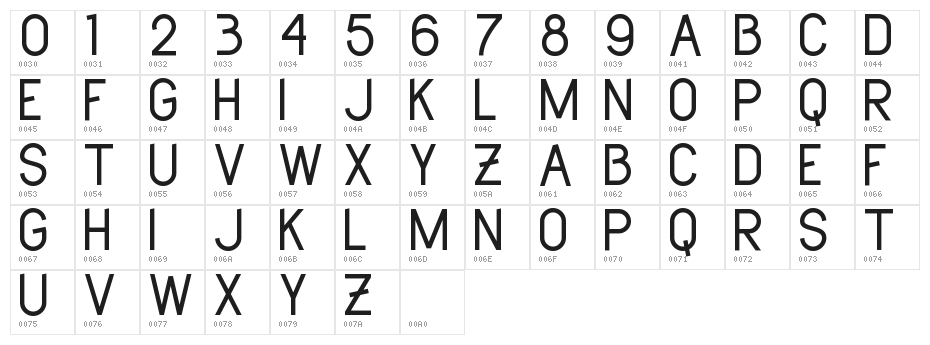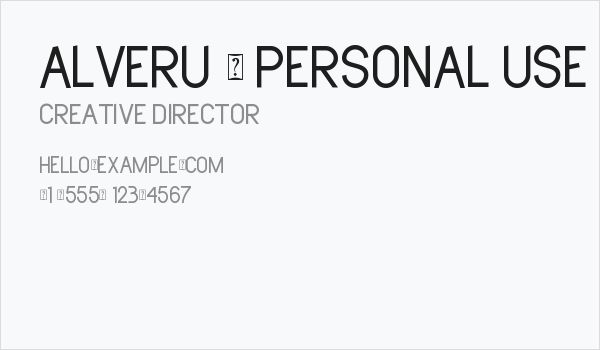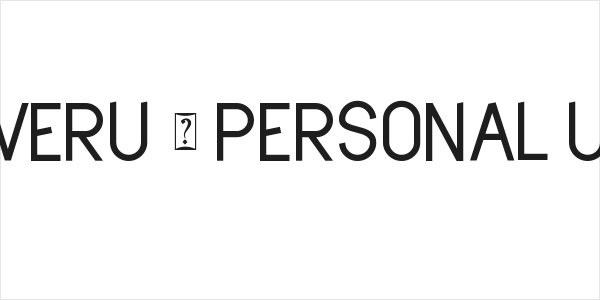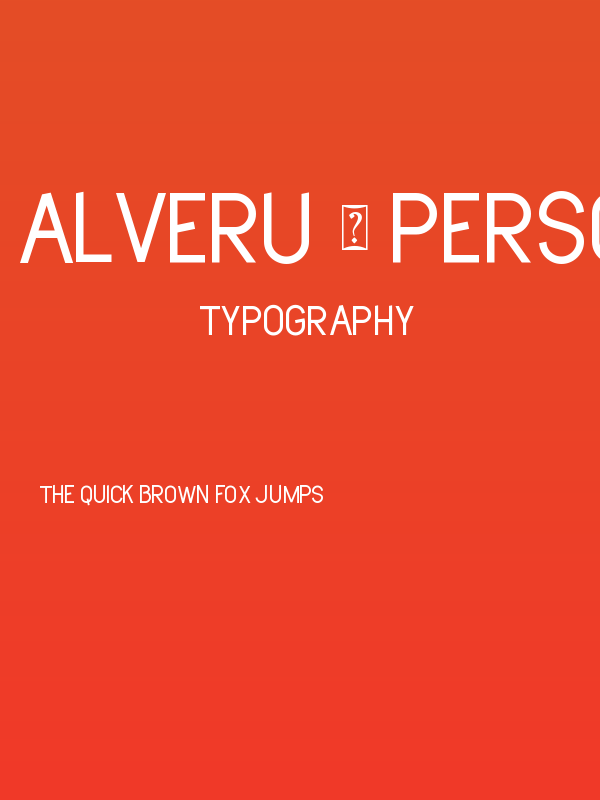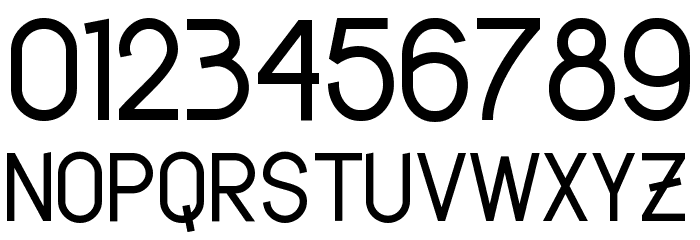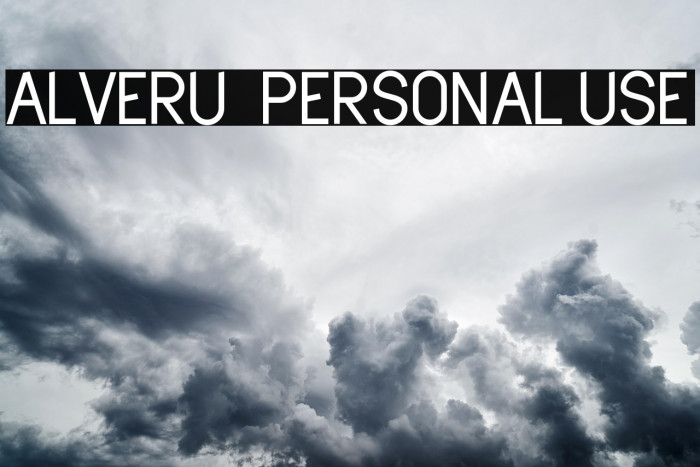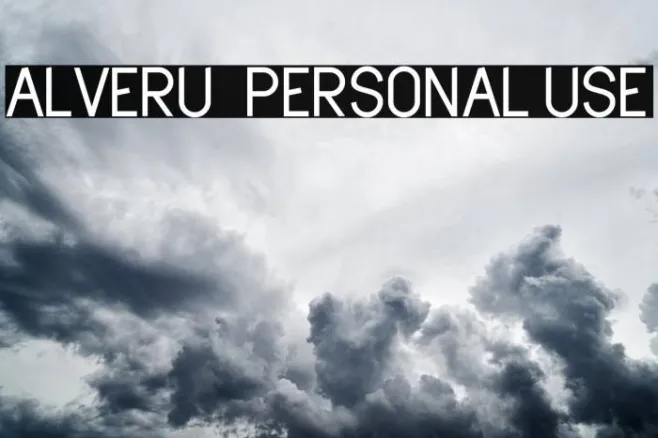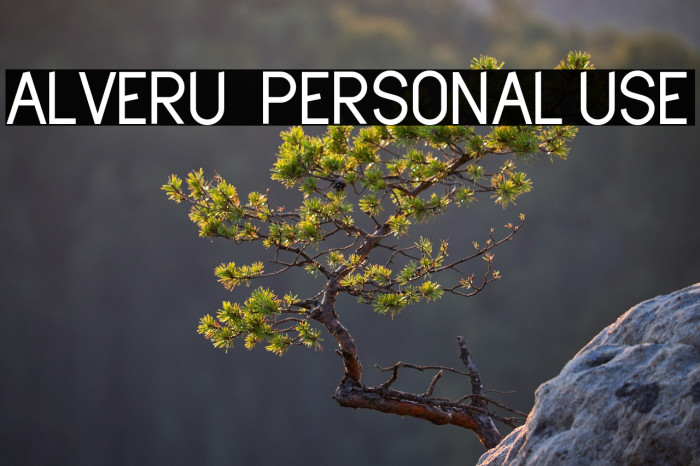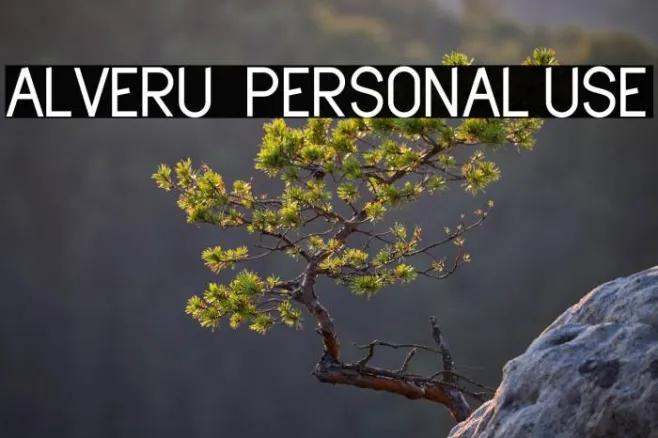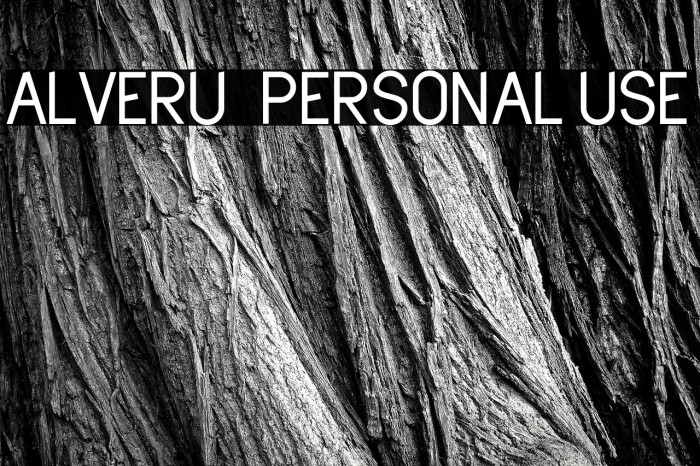
Alveru - Personal Use Font
Alveru - Personal Use Description
This font features a clean and modern sans-serif design, characterized by its geometric shapes and uniform stroke widths. The letters are well-proportioned, with a slightly condensed appearance that enhances readability while maintaining a sleek aesthetic. The uppercase and lowercase letters share a consistent style, with rounded edges that soften the overall look. The numerals are clear and distinct, making them suitable for various applications. Special characters are included, providing versatility for different types of text. This font is ideal for projects that require a contemporary and professional feel.
| Proposed Projects | Ideal for branding, web design, advertising, and editorial projects that require a modern and professional appearance. |